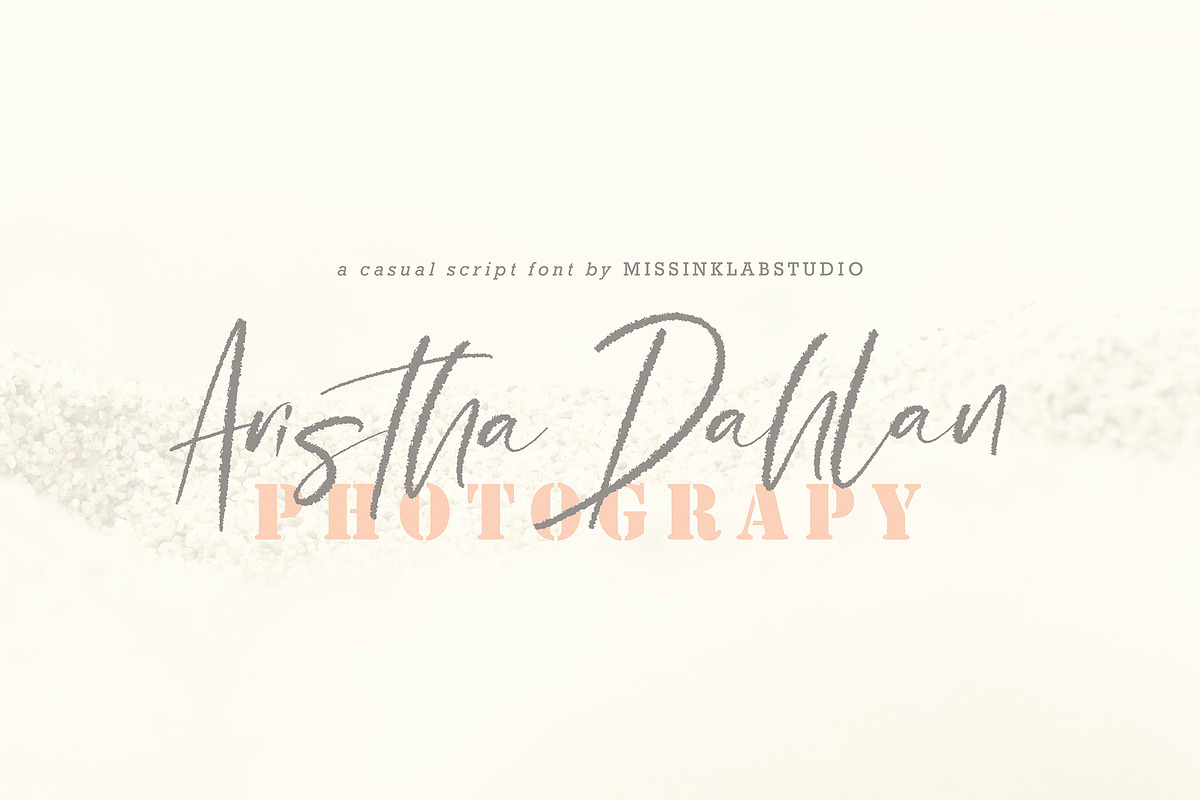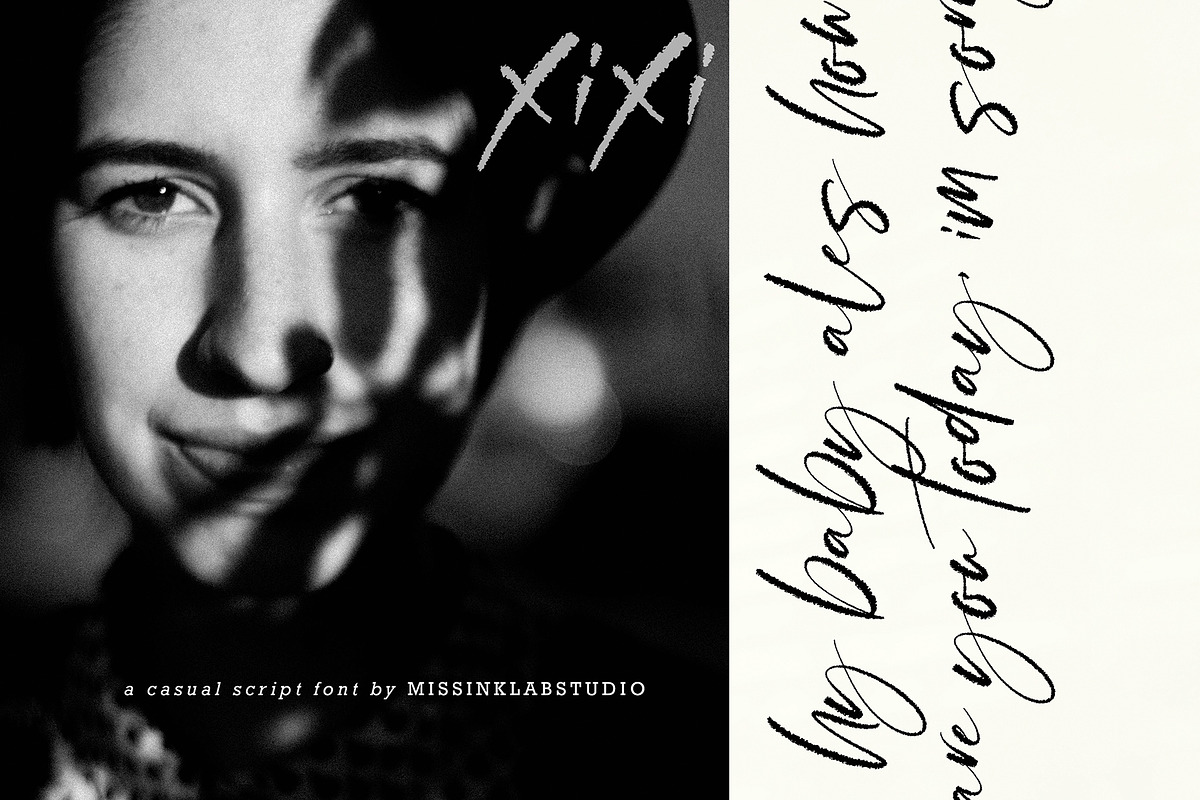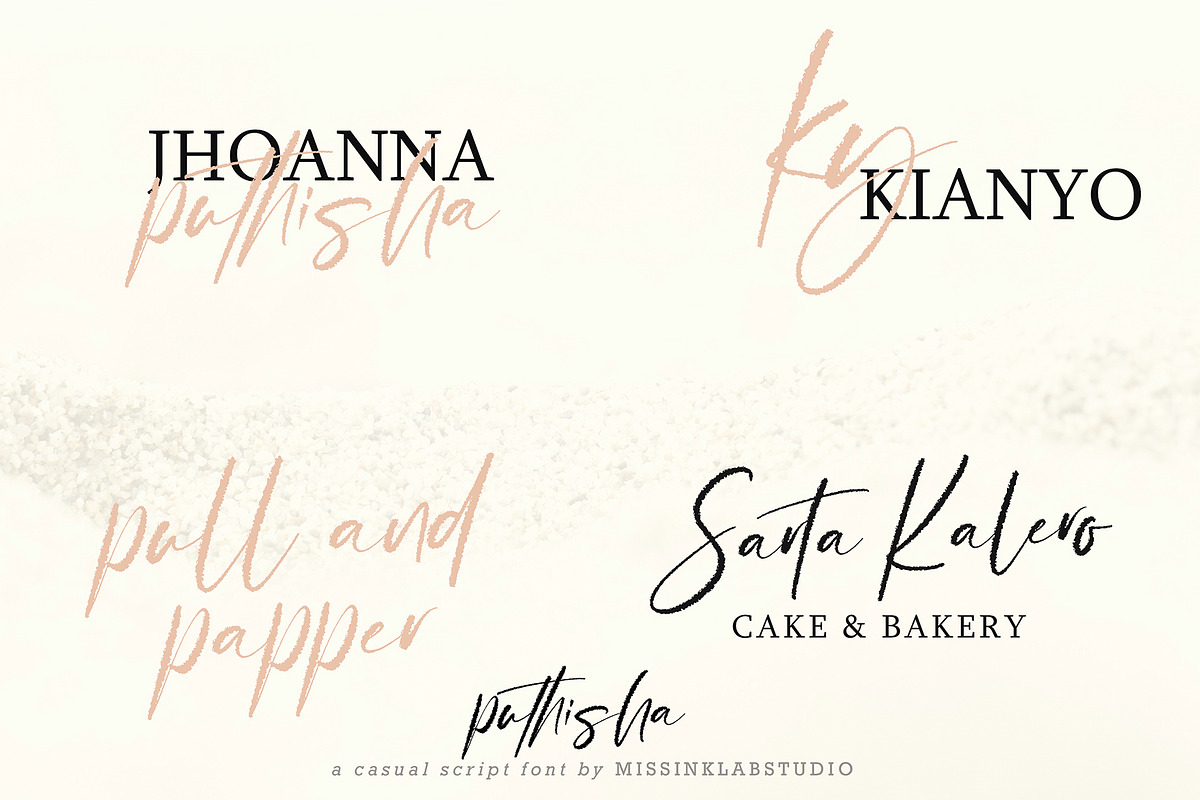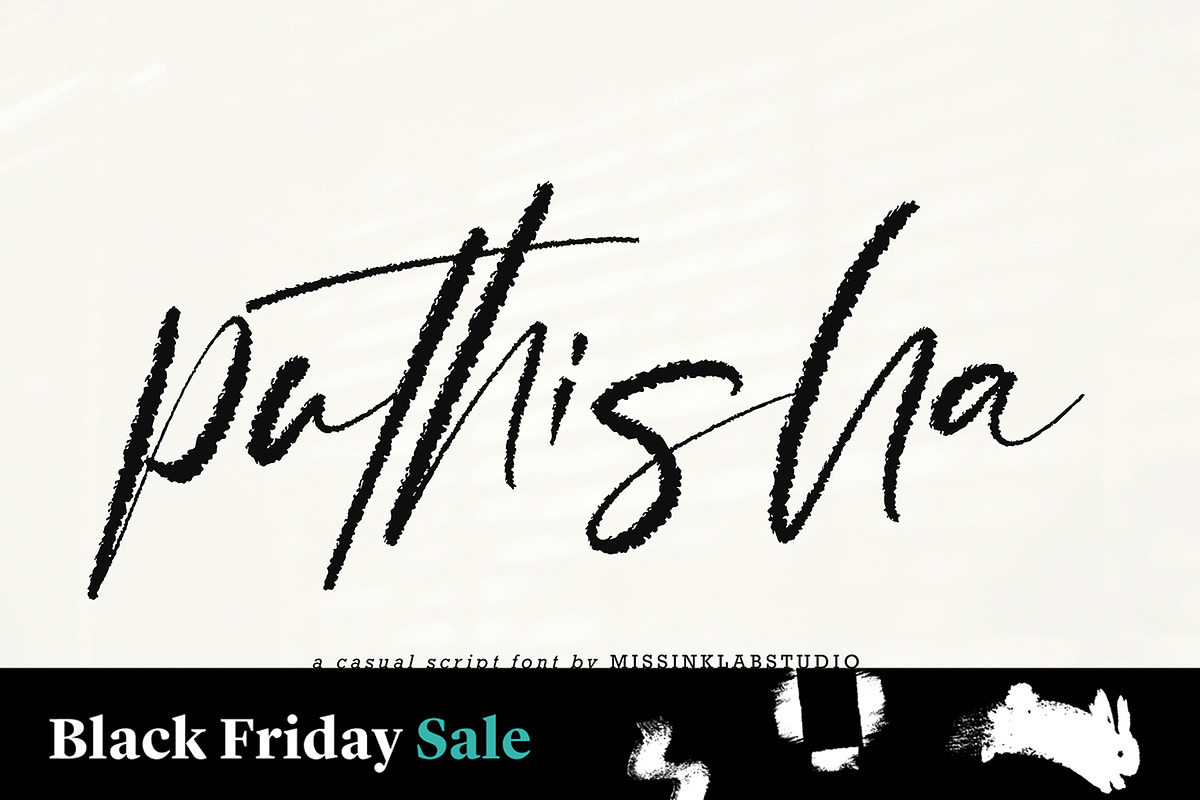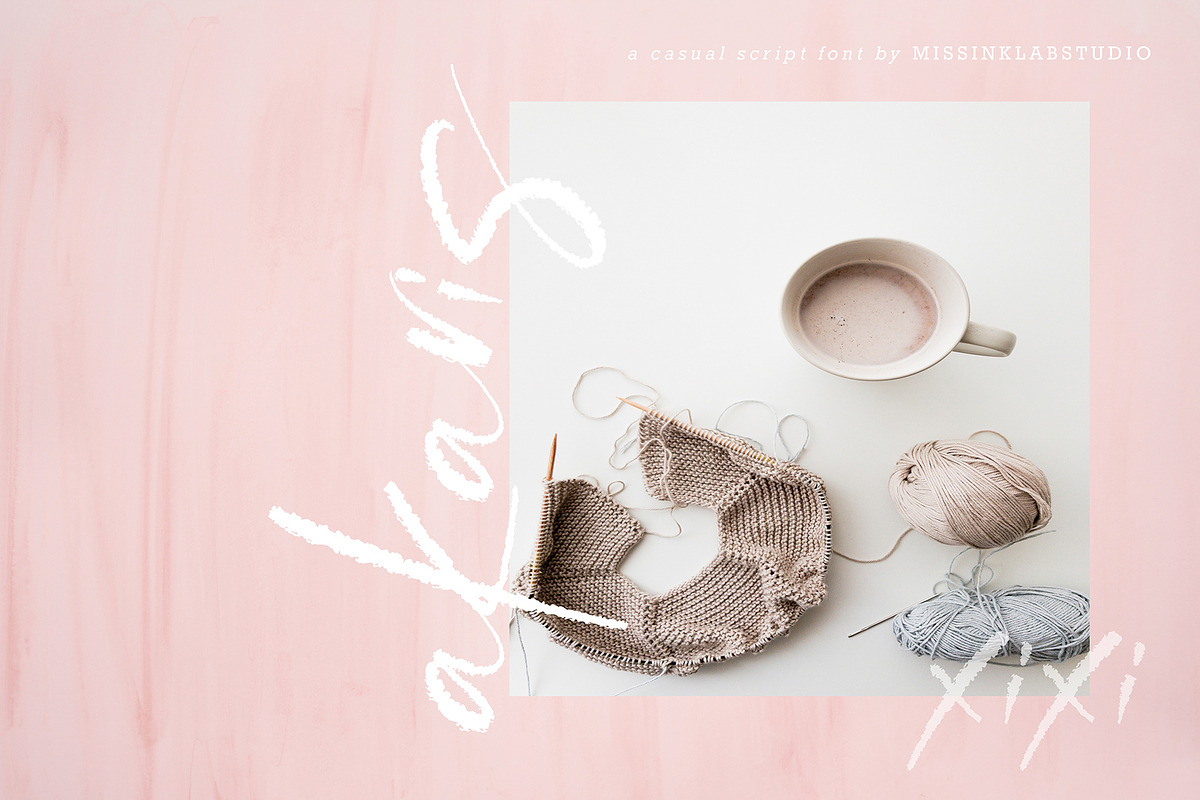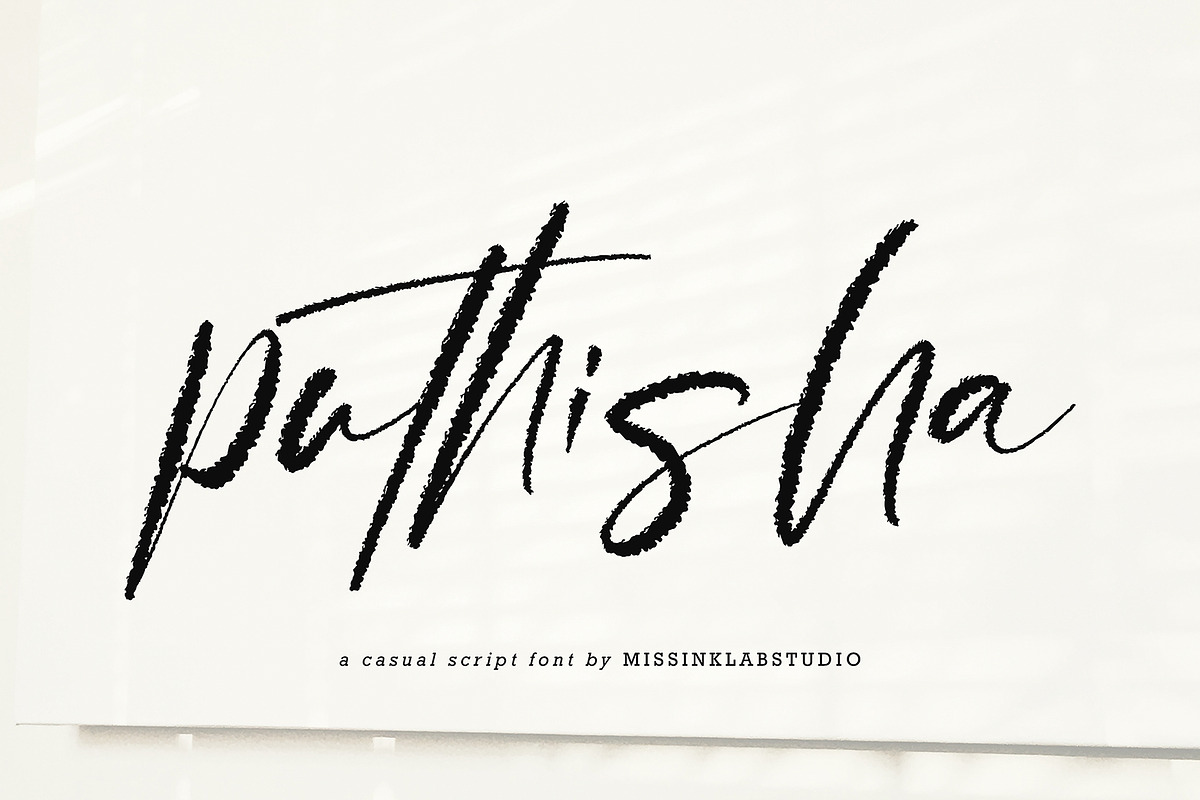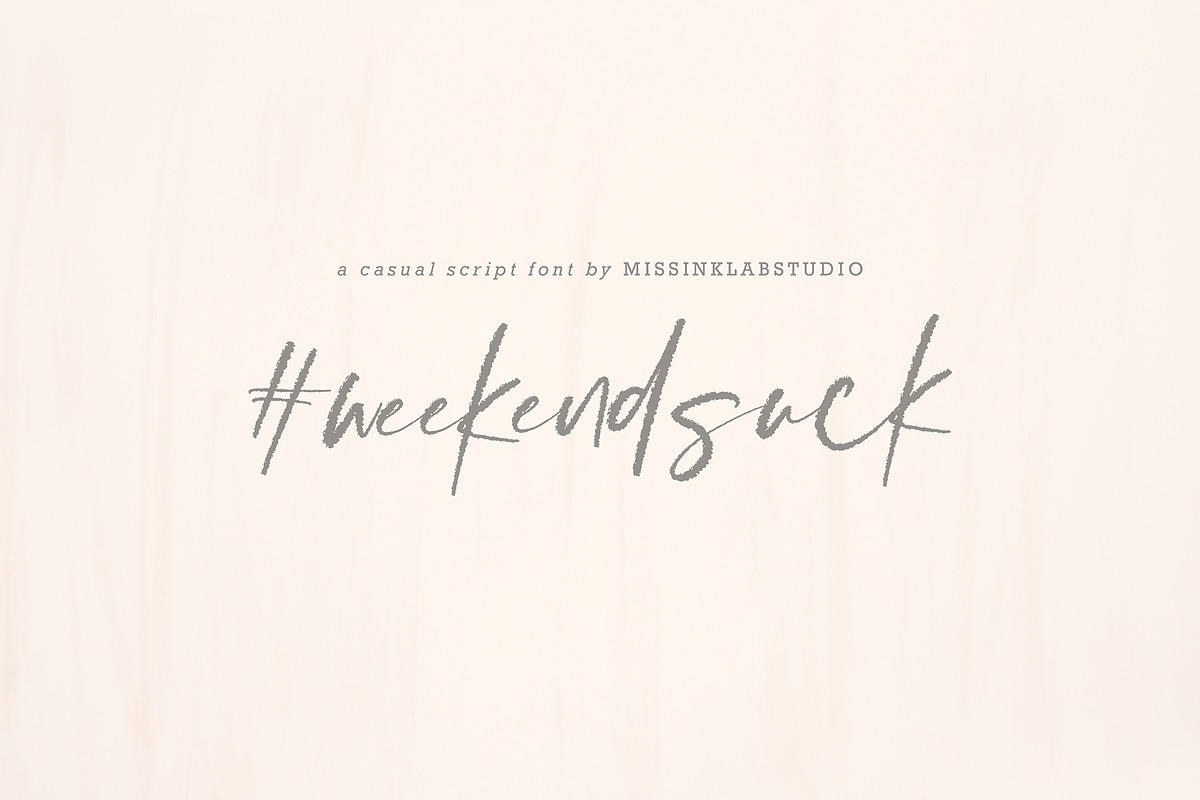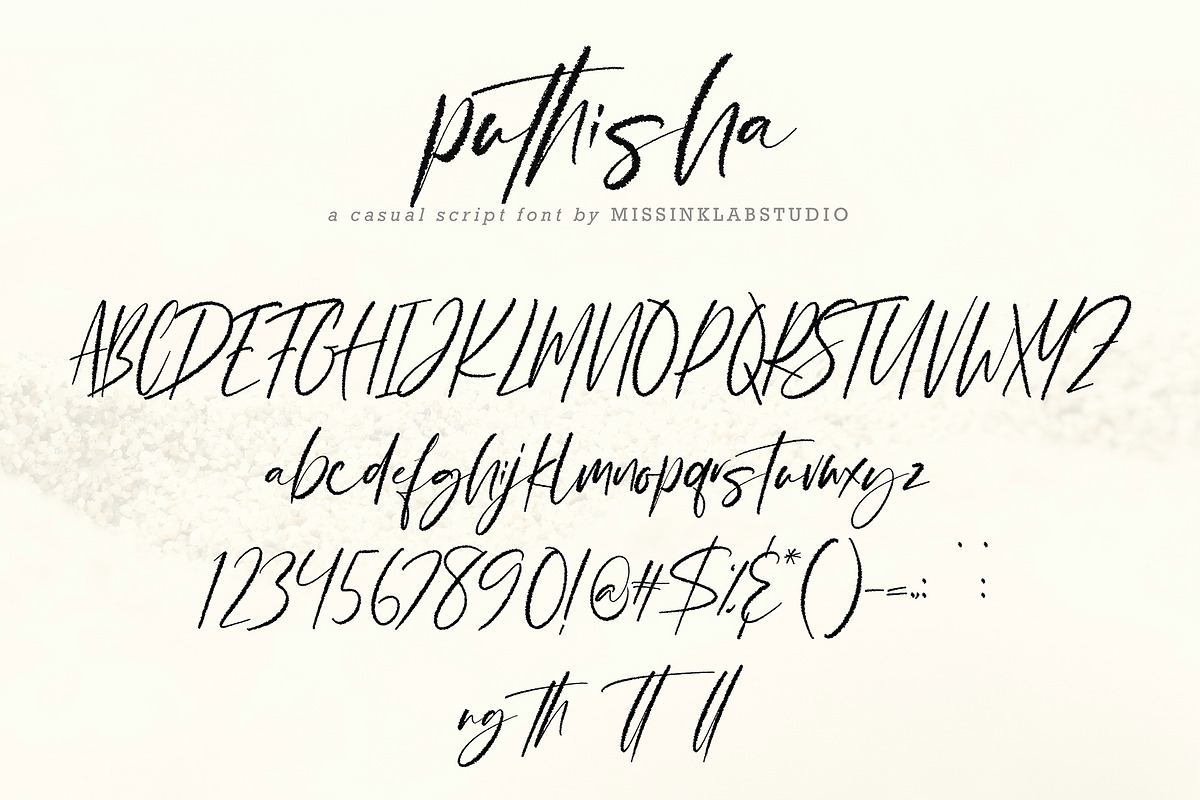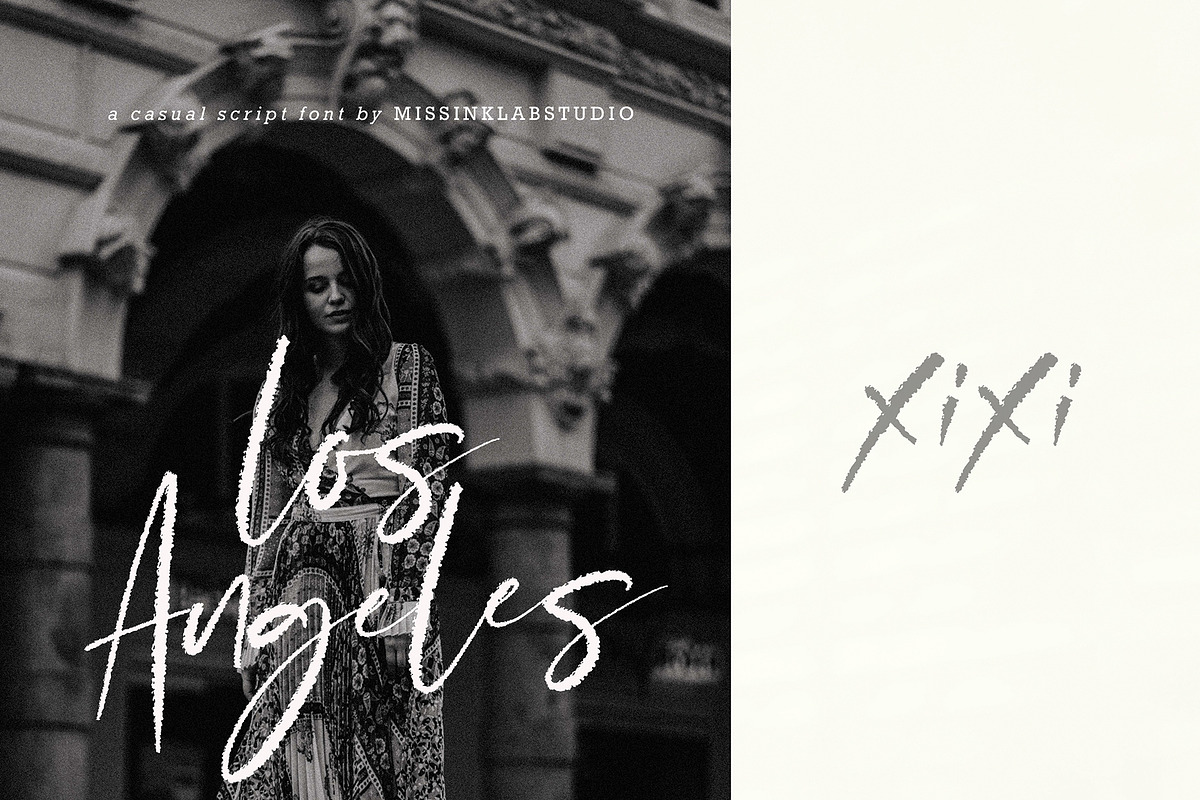
Puthisha Black Friday
Puthisha font with new style, this font will perfect for many different project ex: quotes, logo, blog header, poster, banding, fashion, apparel, letter, invitation, stationery, etc...